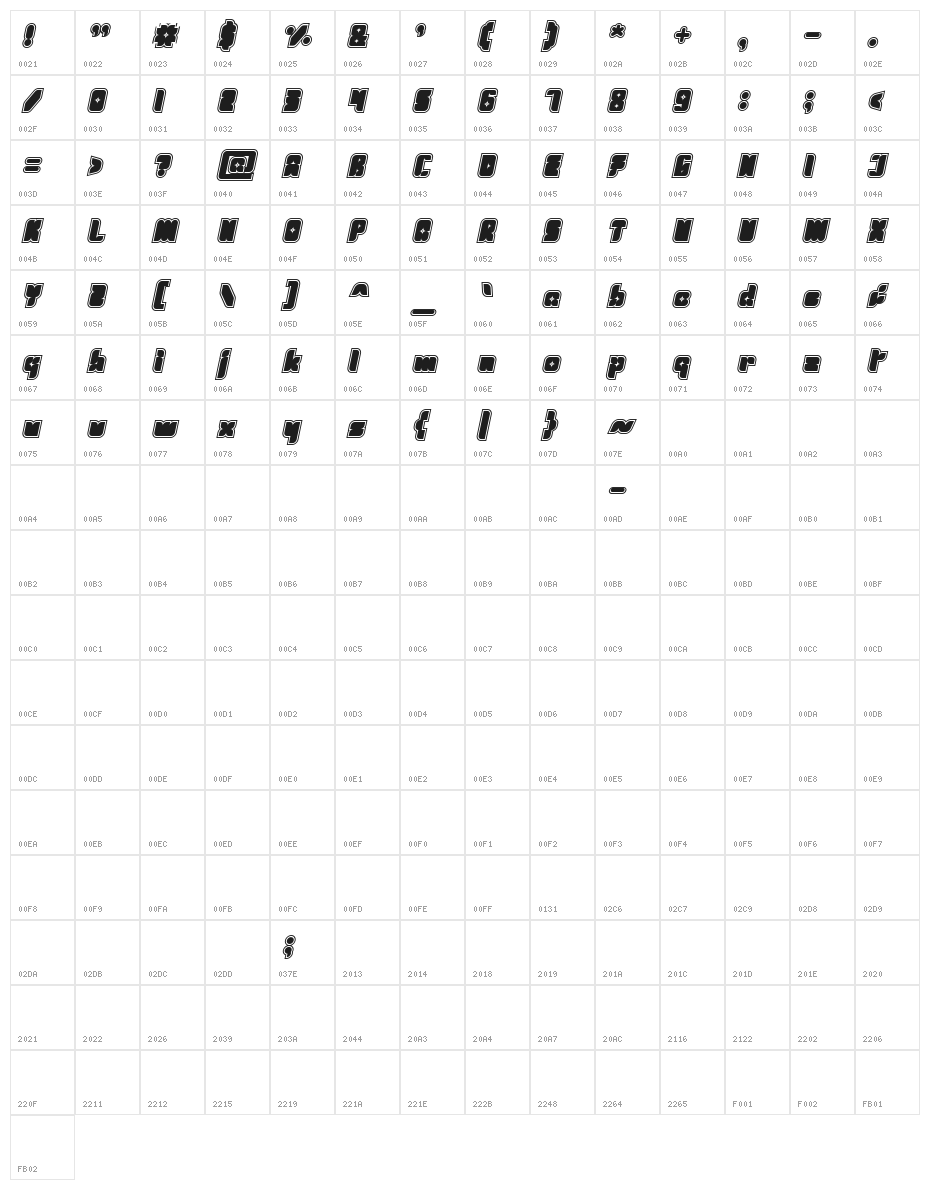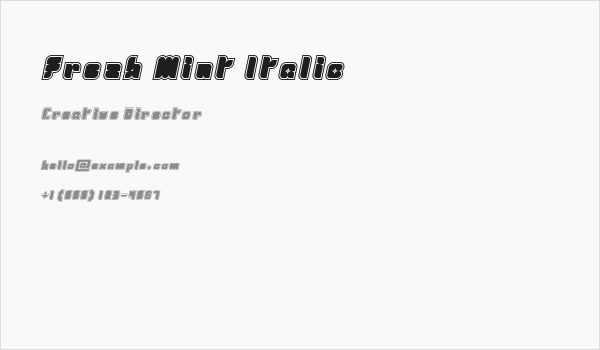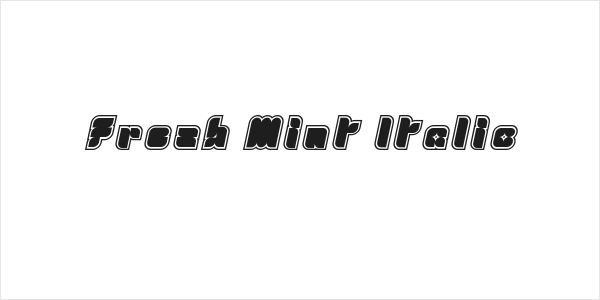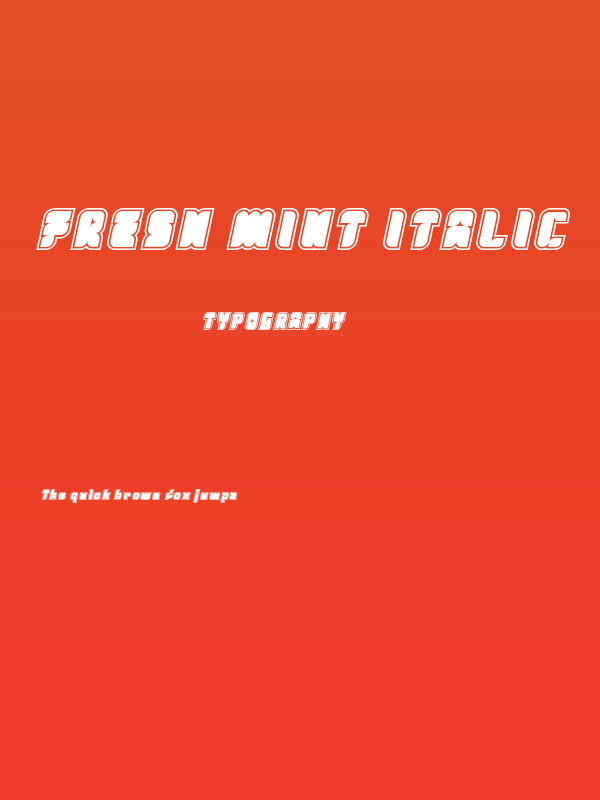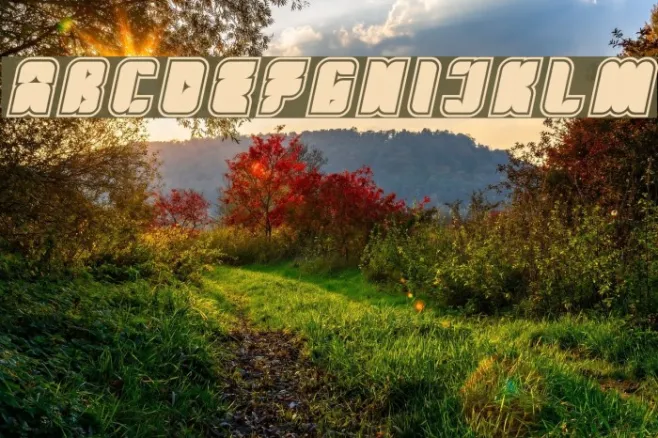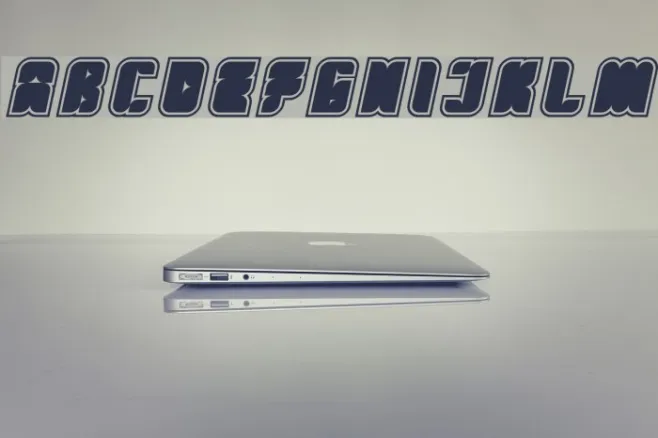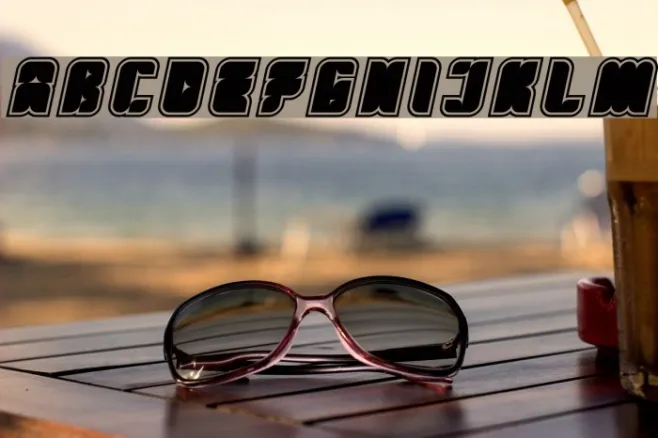
Fresh Mint Italic Font
Fresh Mint Italic Description
This font features a bold, playful design with a unique geometric style. Each character is outlined, creating a striking contrast between the letterforms and their background. The letters are slightly italicized, adding a dynamic and energetic feel. The font includes both uppercase and lowercase letters, numbers, and a variety of special characters. Its boldness and distinct shapes make it ideal for attention-grabbing designs. The characters have a consistent width, and the spacing is relatively tight, enhancing its compact appearance. The font's overall style is modern and decorative, making it suitable for creative and unconventional projects.
| Proposed Projects | Ideal for posters, logos, branding, and any project that requires a bold and playful aesthetic. |